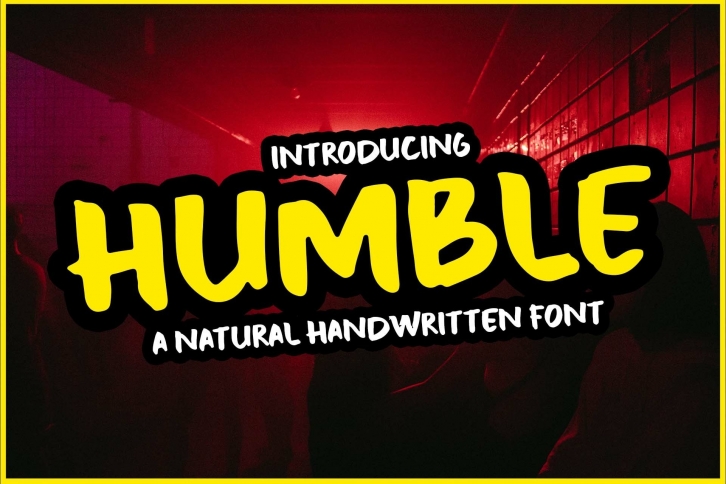
Humble is a beautiful font that was designed by Mas Fik. It's a great choice for designers and creatives who need such a font. It was released on February 24, 2022 and the file size is 3.65 MB. Humble may give a more youthful, expressive and casual look to your project. It is a very beautiful, refined, elegant, and high-quality font.